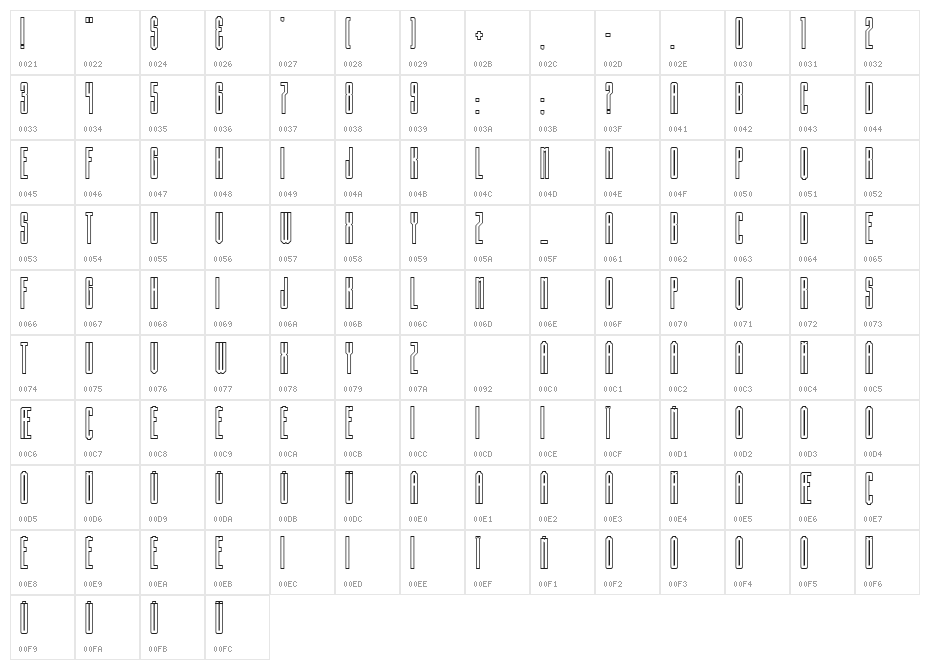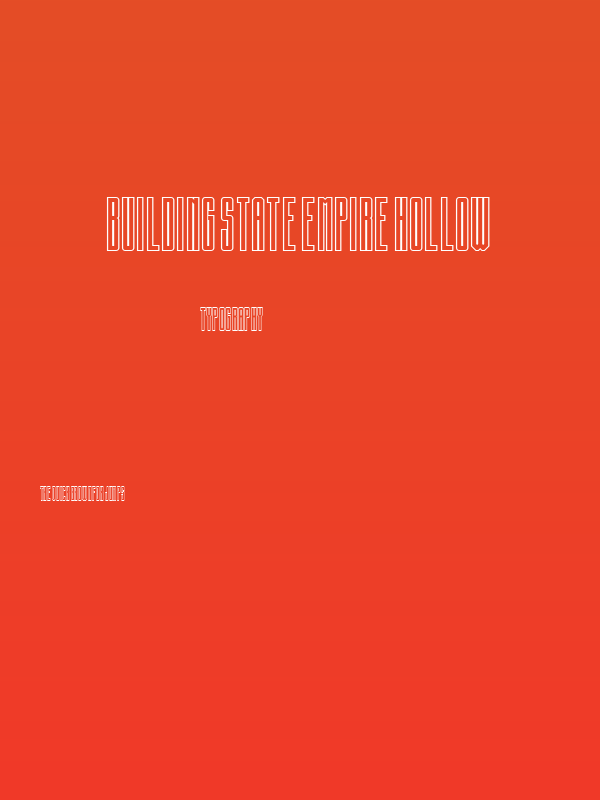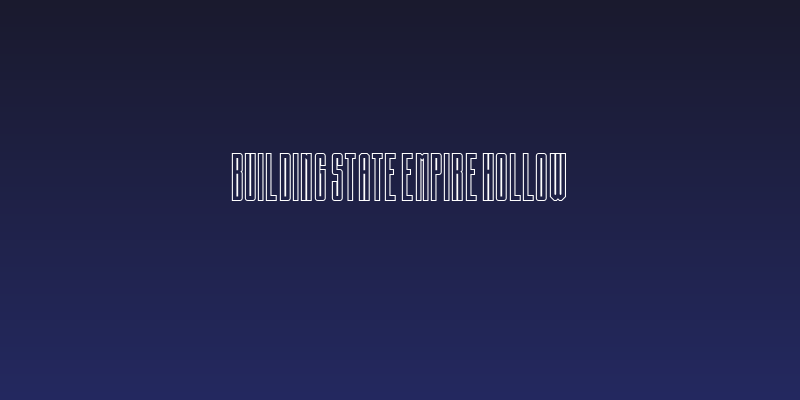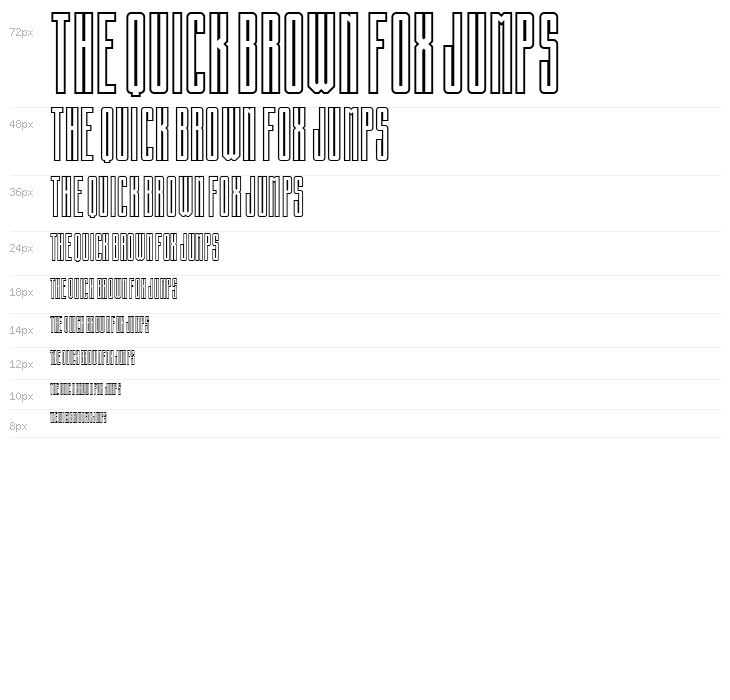
Building State Empire Hollow Font
Building State Empire Hollow Description
This font features a bold, geometric design with a hollow interior, creating a striking outline effect. The characters are tall and narrow, with sharp angles and clean lines, giving it a modern and architectural feel. The uppercase and lowercase letters maintain a consistent style, while the numbers and special characters complement the overall aesthetic. The font's unique hollow design makes it stand out, ideal for projects that require a bold statement.
Proposed ProjectsIdeal for posters, headlines, logos, and branding materials that require a bold and modern look.